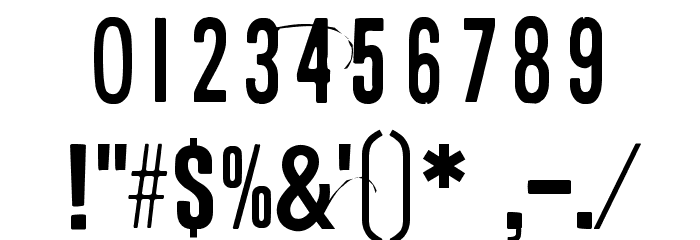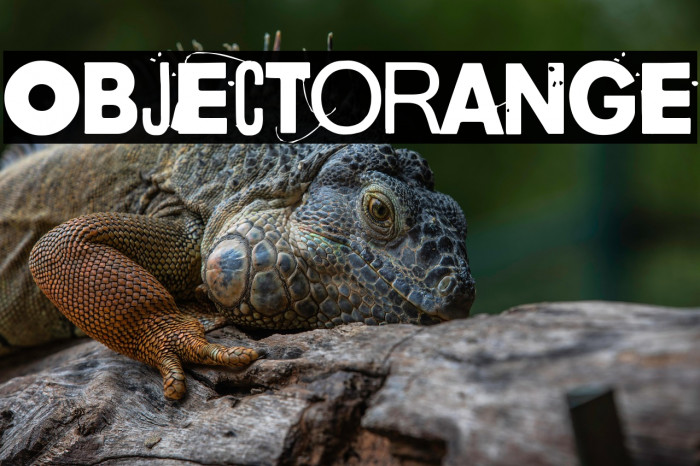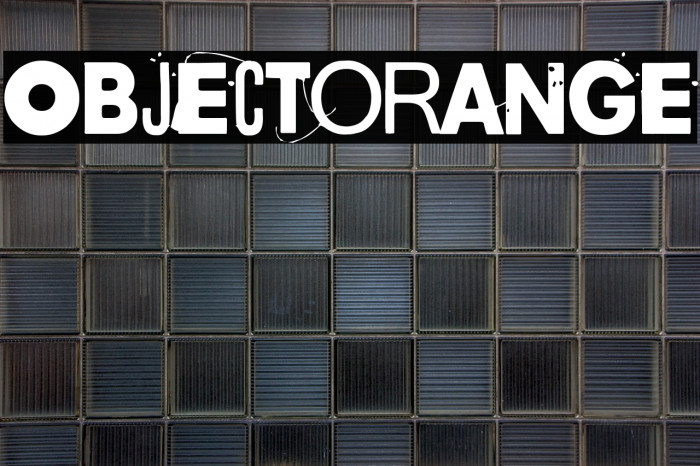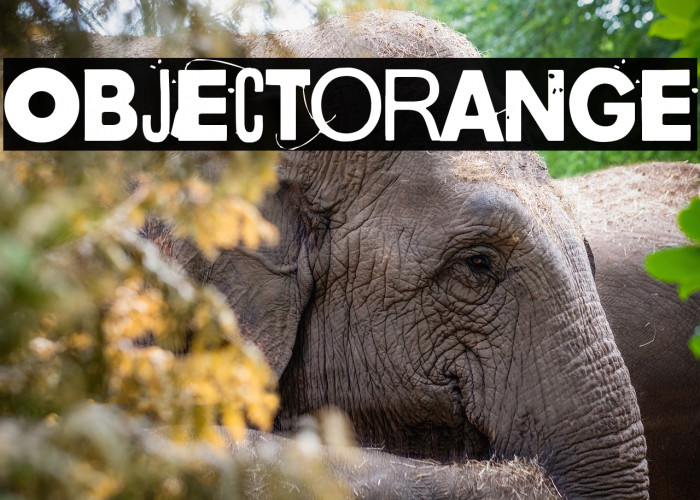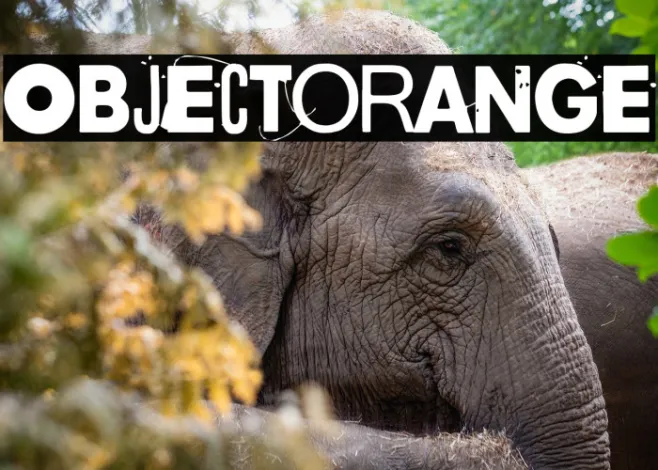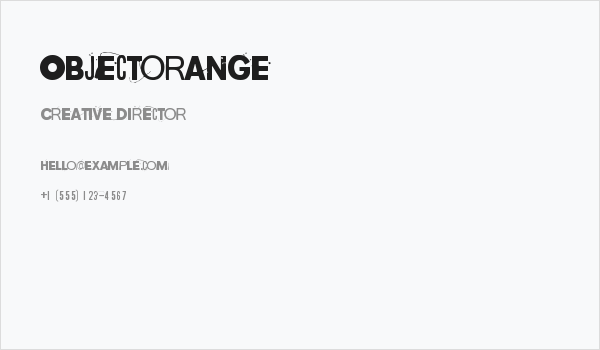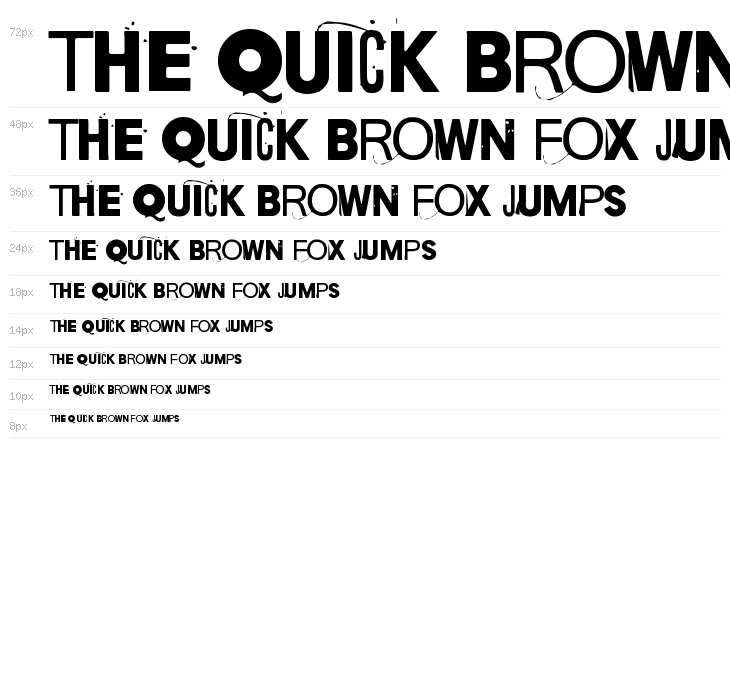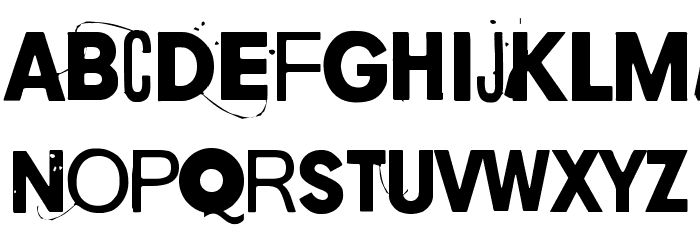
Objectorange Font
Objectorange Description
This font features a bold and impactful design with a strong presence. The uppercase letters are robust and solid, making them ideal for attention-grabbing headlines. The lowercase letters maintain a consistent weight, ensuring readability and balance. The numerals are clear and straightforward, complementing the overall bold aesthetic. Special characters are included, providing versatility for various design needs. The font's style is modern and assertive, suitable for projects requiring a strong visual impact.
| Proposed Projects | Ideal for branding, advertising, posters, and any project needing a bold statement. |